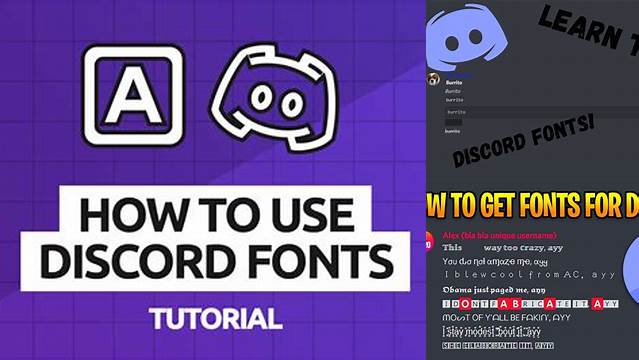
Discord Fonts: How To Make Cool & Unique Text
Hey guys! Want to make your Discord messages stand out? Using special fonts can be a super fun way to add personality to your chats and grab everyone's attention. Discord doesn't have built-in font options like Microsoft Word, but don't worry; there are plenty of cool workarounds. In this guide, I'll show you several methods to create special fonts in Discord, from using Markdown and code blocks to leveraging online font generators. Let's dive in and make your Discord text pop!
Understanding Discord Text Formatting
Before we jump into creating special fonts, it's essential to understand how Discord handles text formatting. Discord uses a simplified version of Markdown, which is a lightweight markup language that allows you to format text using simple symbols. While it doesn't offer traditional font selection, Markdown provides basic styling options like bold, italics, code
, and underlines. Knowing these basics is the foundation for creating more advanced text effects.
Basic Markdown Formatting
Let's quickly review the basic Markdown formatting options available in Discord:
- Bold: To make text bold, enclose it in double asterisks. For example,
**This text will be bold**
will appear as This text will be bold. - Italics: To italicize text, enclose it in single asterisks. For example,
*This text will be italicized*
will appear as This text will be italicized. - Bold Italics: You can combine both by using triple asterisks. For example,
***This text will be bold and italicized***
will appear as This text will be bold and italicized. - Underline: To underline text, enclose it in double underscores. For example,
__This text will be underlined__
will appear as This text will be underlined. - Strikethrough: To strikethrough text, enclose it in double tildes. For example,
~~This text will be struck through~~
will appear asThis text will be struck through. Code
: To format text as code, enclose it in single backticks. For example,`This text will be formatted as code`
will appear asThis text will be formatted as code
.
Code Blocks for Different Fonts
One of the more creative ways to get different fonts in Discord is by using code blocks. Code blocks allow you to display text in a monospaced font, which can give your messages a unique look. There are two types of code blocks:
Single-line code blocks: These are created using single backticks (
). For example, ``
This is a single-line code block` ``. -
Multi-line code blocks: These are created using triple backticks (```). You can also specify a language after the triple backticks to apply syntax highlighting, but for our purposes, we're just using it to change the font. For example:
This is a multi-line code block. It uses a monospaced font.
Using Online Font Generators for Discord
If you're looking for more stylized and unique fonts than what Markdown and code blocks can offer, online font generators are your best bet. These tools allow you to type in your desired text and then convert it into a variety of fancy fonts that you can copy and paste into Discord. Here’s how to use them:
Finding a Reliable Font Generator
There are tons of font generators available online, but here are a few popular and reliable options:
- Cool Text Generators: Sites like LingoJam, Cool символи, and TextFx offer a wide range of font styles. Just search "Discord font generator" on your favorite search engine, and you’ll find plenty of options.
- Fancy Text Generators: These generators provide a variety of decorative fonts that go beyond the basic monospaced look.
Generating and Copying Fonts
The process is generally the same for most font generators:
- Visit the Font Generator Website: Choose one of the font generators mentioned above and navigate to their site.
- Enter Your Text: Look for a text input box where you can type the message you want to format.
- Select a Font: The website will usually display your text in a variety of different fonts. Scroll through the options and choose the one you like best.
- Copy the Generated Text: Once you've found a font you like, click the "Copy" button (or manually select and copy the text).
- Paste into Discord: Go to your Discord channel and paste the copied text into the chat box. Press Enter to send your message with the special font.
Limitations of Font Generators
While font generators are great for creating visually appealing text, it's important to understand their limitations:
- Not True Fonts: These generators don't actually change the font in the traditional sense. Instead, they use special Unicode characters to mimic different font styles. This means that the "font" you're using is actually a collection of symbols that resemble letters.
- Compatibility Issues: Because these fonts rely on Unicode characters, they may not display correctly on all devices or platforms. Some users might see boxes or question marks instead of the intended font.
- Accessibility: Special fonts can sometimes be difficult to read for people with visual impairments. It's always a good idea to use these fonts sparingly and ensure that your message is still clear and understandable.
Advanced Techniques: Combining Markdown and Font Generators
For even more creative control, you can combine Markdown formatting with font-generated text. For example, you can make a special font bold or italicized by adding the appropriate Markdown symbols around the generated text. Here’s how:
- Generate Your Font: Use an online font generator to create the text you want.
- Add Markdown Formatting: Before pasting the text into Discord, add Markdown symbols around it. For example, to make the generated text bold, add double asterisks (
**
) before and after the text. - Paste into Discord: Paste the modified text into your Discord chat and send it.
Here are a few examples:
- Bold Fancy Text:
**Generated Fancy Text**
- Italicized Fancy Text:
*Generated Fancy Text*
- Bold and Italicized Fancy Text:
***Generated Fancy Text***
Tips for Using Special Fonts Effectively
Using special fonts can be a fun way to enhance your Discord experience, but it's important to use them judiciously. Here are a few tips to keep in mind:
- Use Sparingly: Overusing special fonts can make your messages look cluttered and hard to read. Use them to highlight important information or add emphasis, but avoid using them for entire paragraphs.
- Consider Readability: Choose fonts that are easy to read. Some fonts may look cool but are difficult to decipher, especially for users with smaller screens or visual impairments.
- Test on Different Devices: Before relying on a particular font, test it on different devices and platforms to ensure it displays correctly for all users.
- Be Mindful of Accessibility: Keep accessibility in mind when using special fonts. Avoid using fonts that are too decorative or difficult to read, and always provide alternative text for important information.
Even with the best planning, you might encounter some issues when using special fonts in Discord. Here are a few common problems and how to troubleshoot them:
- Fonts Not Displaying Correctly: If your special font isn't displaying correctly, it could be due to compatibility issues with the user's device or platform. Ask them to check their device settings or try a different font generator.
- Boxes or Question Marks Appearing: This usually indicates that the device doesn't support the Unicode characters used in the font. Unfortunately, there's not much you can do to fix this, as it's a limitation of the device itself.
- Formatting Issues: If your Markdown formatting isn't working correctly with the special font, double-check that you've used the correct symbols and that they're placed correctly around the text.
And there you have it! With these methods, you can easily create special fonts in Discord and add a unique flair to your messages. Whether you're using basic Markdown, code blocks, or online font generators, there are plenty of ways to make your text stand out. Just remember to use these fonts judiciously, consider readability and accessibility, and test them on different devices to ensure everyone can enjoy your creative messages. Happy chatting, and have fun experimenting with different fonts!